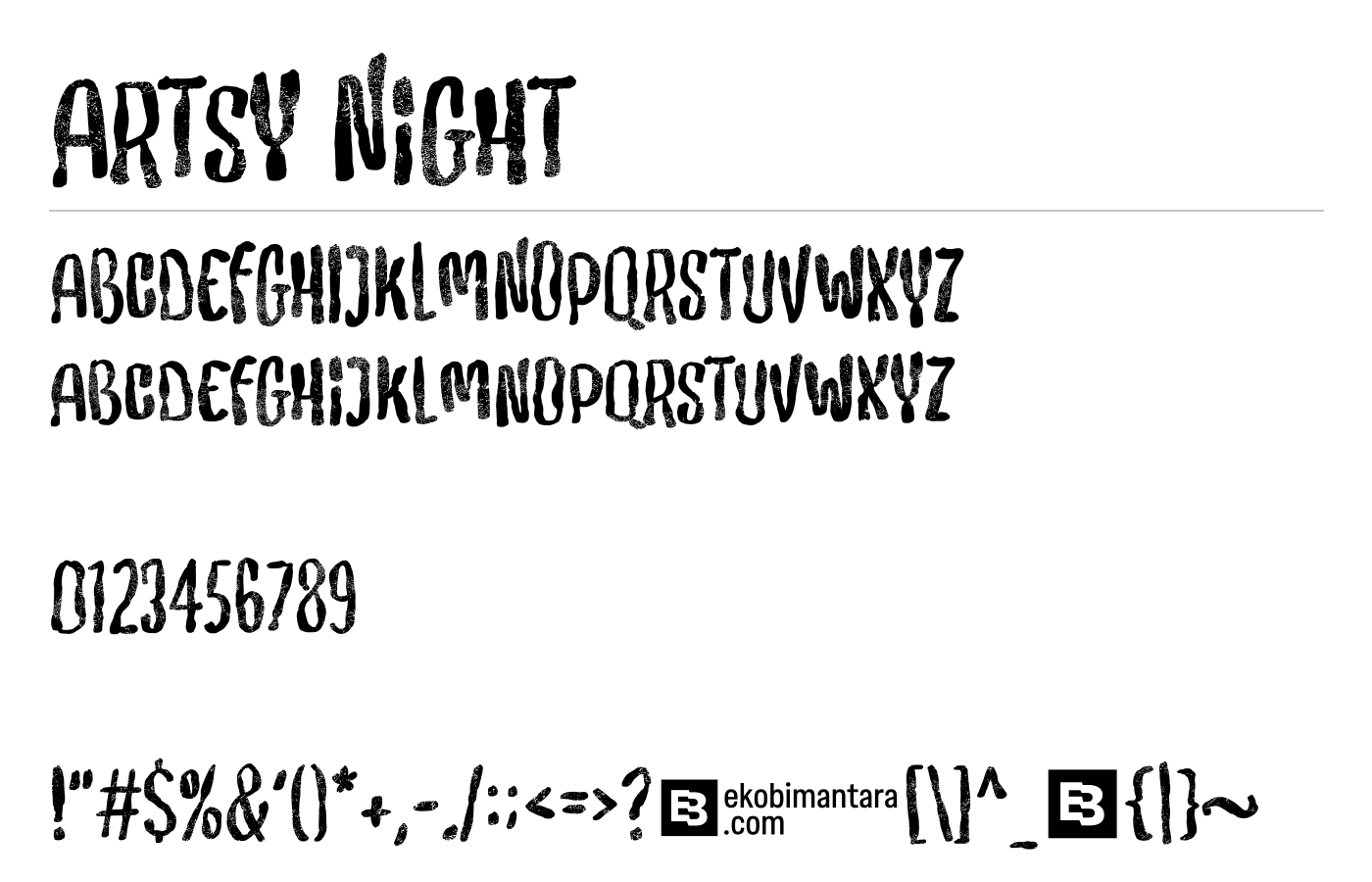
Artsy Night is a bold, condensed sans serif font with a rough, hand-drawn texture that gives it a creative and edgy vibe. Its irregular shapes and distressed appearance make it perfect for artistic and casual designs that want to stand out with a unique, handcrafted feel. This font works well for posters, headlines, logos, and any project that needs a playful yet expressive style.
Artsy Night Font
About Artsy Night Font